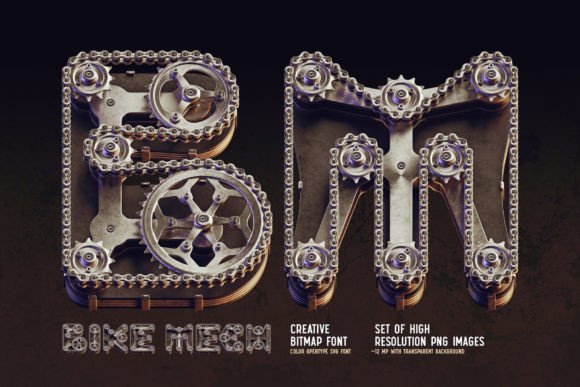
Get Ready to Gear Up Your Designs
Have you ever found yourself staring at a blank canvas, feeling like your creativity is stuck in neutral? Sometimes all it takes is a spark to get those gears turning. For designers looking to add a unique touch to their work, that spark can come in the form of a bold, eye-catching font.
Enter the Bike Mech Font, a steampunk-inspired typeface that’s sure to rev up your designs. This 3D-rendered font is made up of intricately designed bike gears and chains, giving it a one-of-a-kind look that’s perfect for adding a touch of industrial chic to your projects.
Bike Mech Font Key Features
- Font Family: Bike Mech Font is a unique font family designed for bike enthusiasts and mechanics.
- Unique Characteristics: Bike Mech Font features a distressed, industrial look with gears, cogs, and other mechanical elements, making it perfect for bike-themed designs.
Bike Mech Font Review
Overall, I think Bike Mech Font is a unique and interesting font. It has a lot of character and can add a fun, industrial touch to designs. ✨
- The font’s distressed, mechanical aesthetic is perfect for designs that need a bit of grit and grunge.
- The font is highly customizable, with a wide range of font weights and styles available.
- The font is well-suited for use in headings and titles, where its bold, eye-catching design can really shine.
- The font may be a bit too bold or overwhelming for some designs, particularly those that require a more subtle or elegant look. ⚠️
- The font may not be suitable for use in body text, where its bold design can be difficult to read.
Overall, I think Bike Mech Font is a great choice for designers who want to add a bit of edge and personality to their designs. While it may not be suitable for every project, it’s definitely a great option for designs that need a bold, industrial look.
Tips for Getting the Most Out of Bike Mech Font
Here are a few tips for getting the most out of Bike Mech Font:
- Use Bike Mech Font for titles and headings to add a touch of industrial chic to your design.
- Pair Bike Mech Font with a clean sans-serif font for body text to create a visually appealing contrast.
- Experiment with different font sizes and styles to create a unique and eye-catching design.